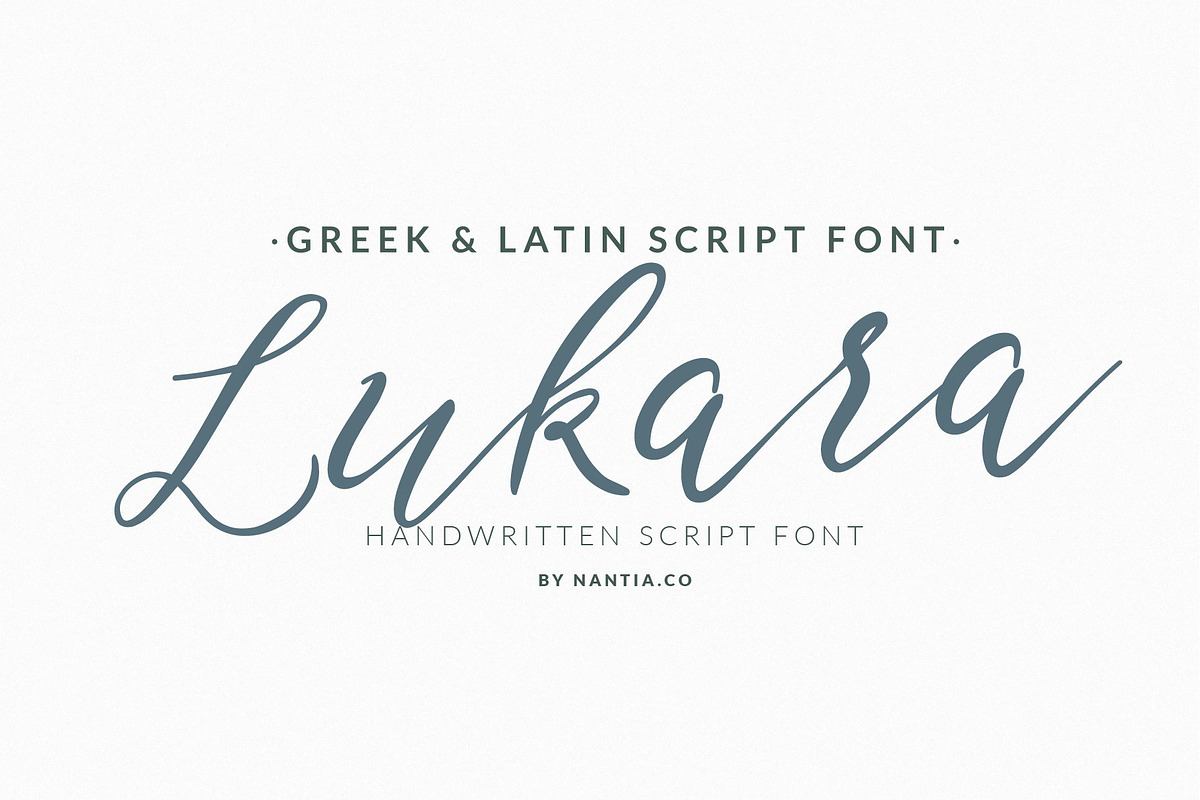
Greek Font Lukara Pro Script Free Download is an elegant and sophisticated script typeface designed to bring timeless beauty to your designs. Featuring smooth, flowing curves and Greek-inspired letterforms, this font is perfect for creating logos, branding, invitations, and social media content with a touch of class. Its refined design ensures readability while adding an artistic and luxurious feel to any project. Whether you're working on a high-end brand, a creative campaign, or a cultural project, Greek Font Lukara Pro Script Free Download lets you experiment with its unique style in personal projects before purchasing a commercial license. Add elegance and versatility to your designs with this beautifully crafted script font inspired by Greek heritage.